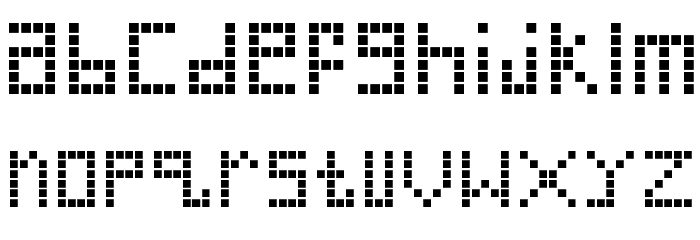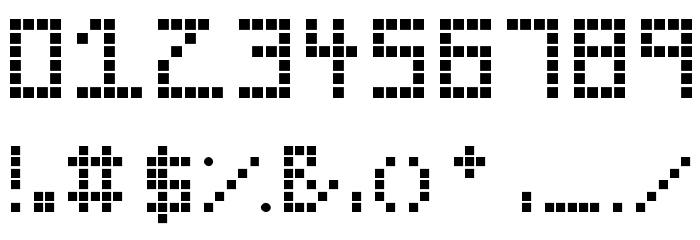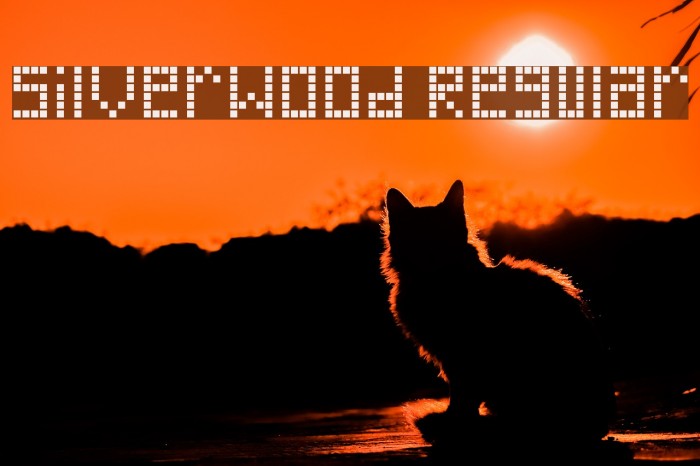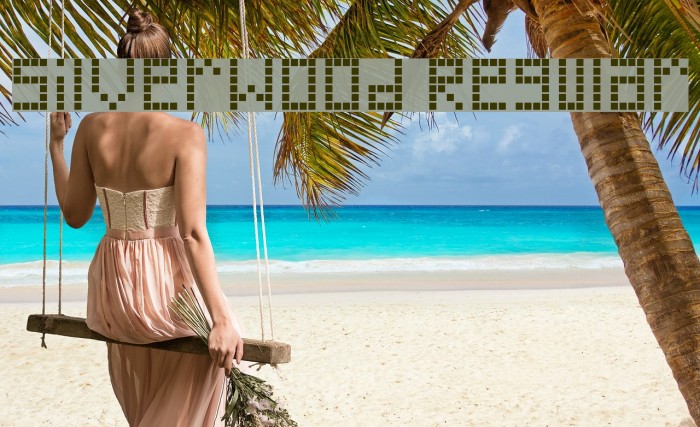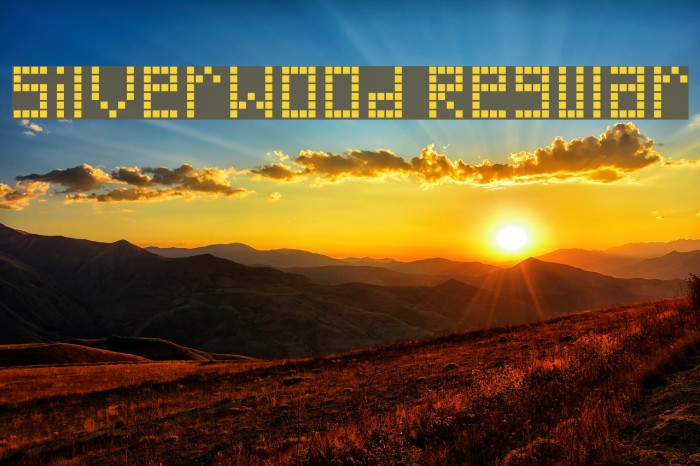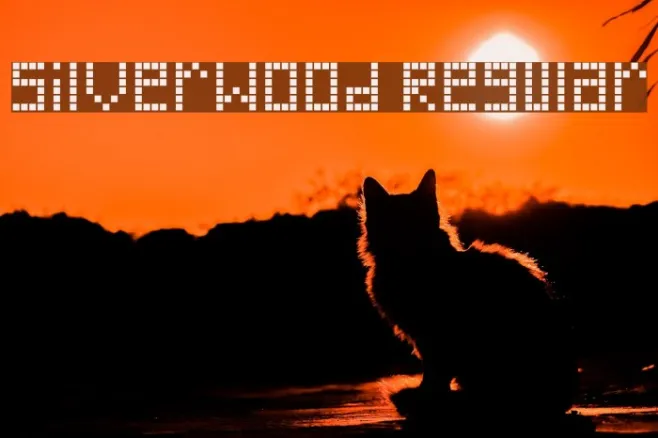
Silverwood Regular Font
This font is a unique and visually striking design composed entirely of small, evenly spaced squares that form each character. The geometric and pixelated appearance gives it a digital, retro feel reminiscent of early computer graphics or LED displays. Each letter and number is constructed with precision, maintaining a consistent grid-like pattern throughout. The uniformity in the design ensures legibility while adding a distinct stylistic touch that sets it apart from traditional typefaces. The font's aesthetic is both modern and nostalgic, making it suitable for projects that aim to capture a tech-savvy or futuristic vibe.
A pixelated, grid-based font with a digital, retro aesthetic.
- Proposed Projects: Ideal for digital art, tech-themed designs, video game graphics, and retro-style posters.
- Use Case: Logos, Headlines, Digital displays